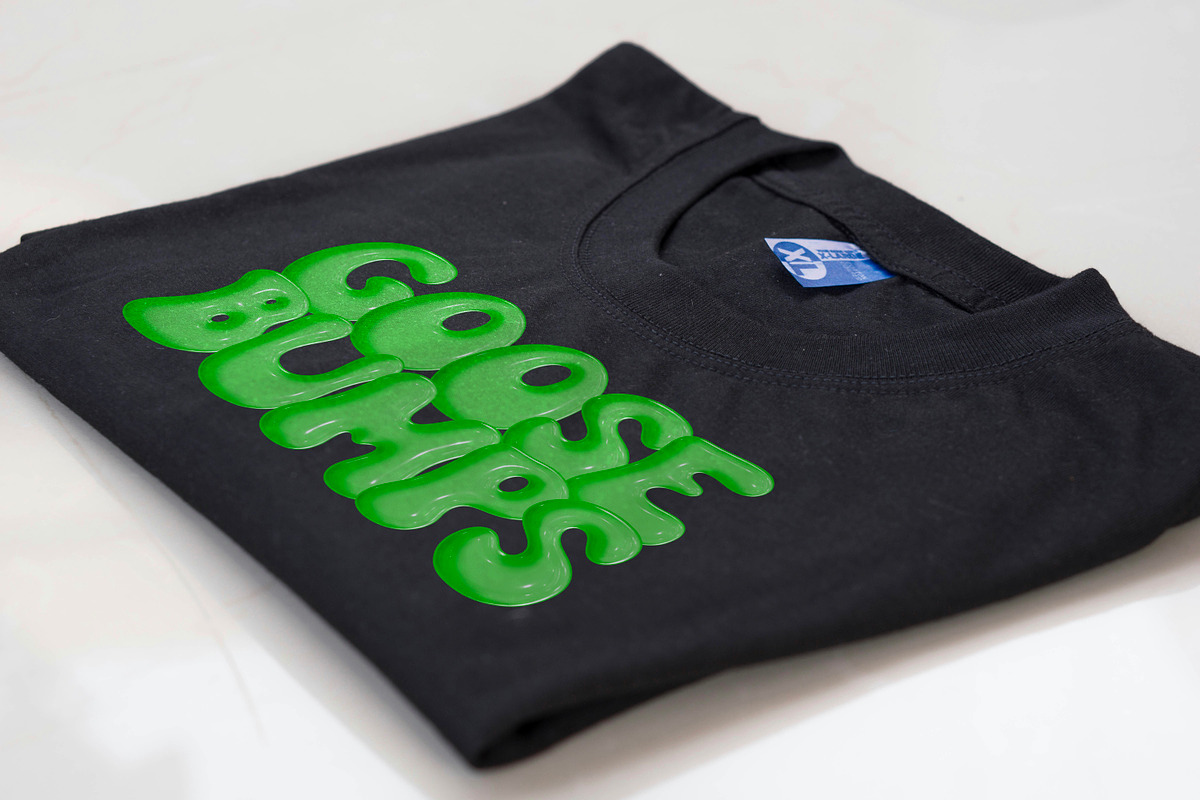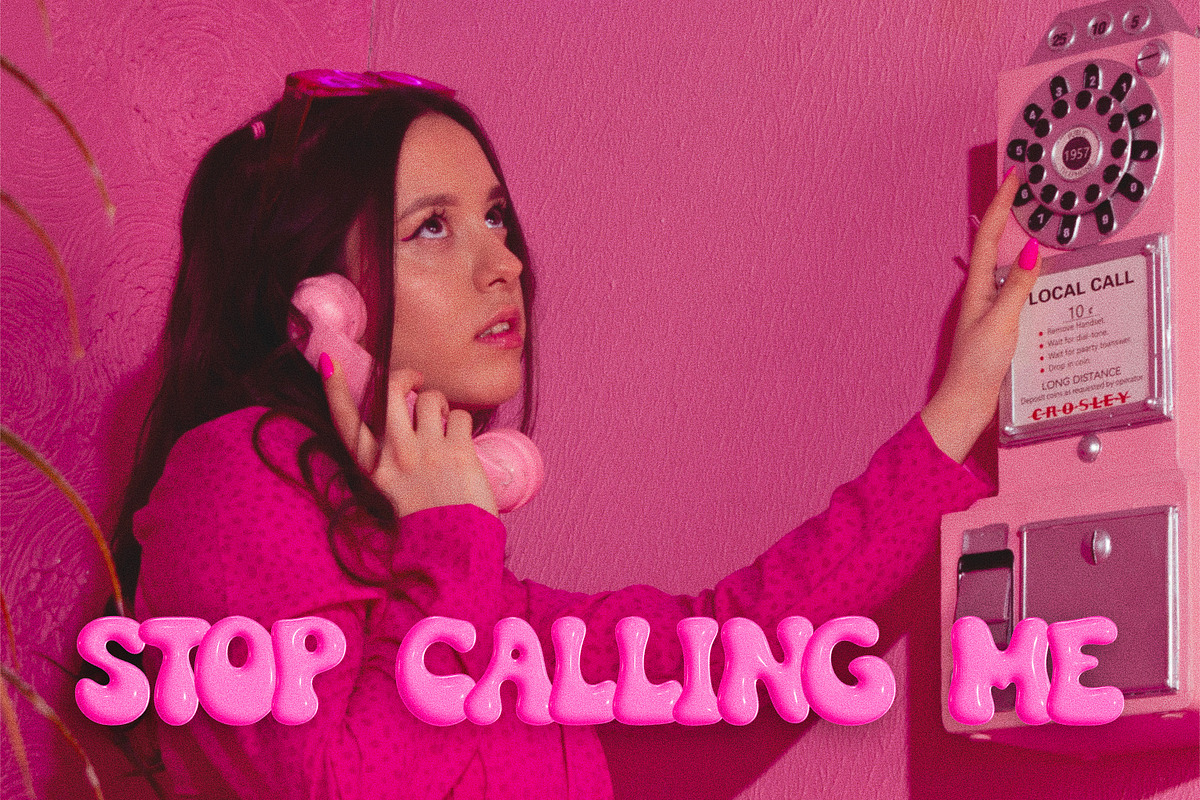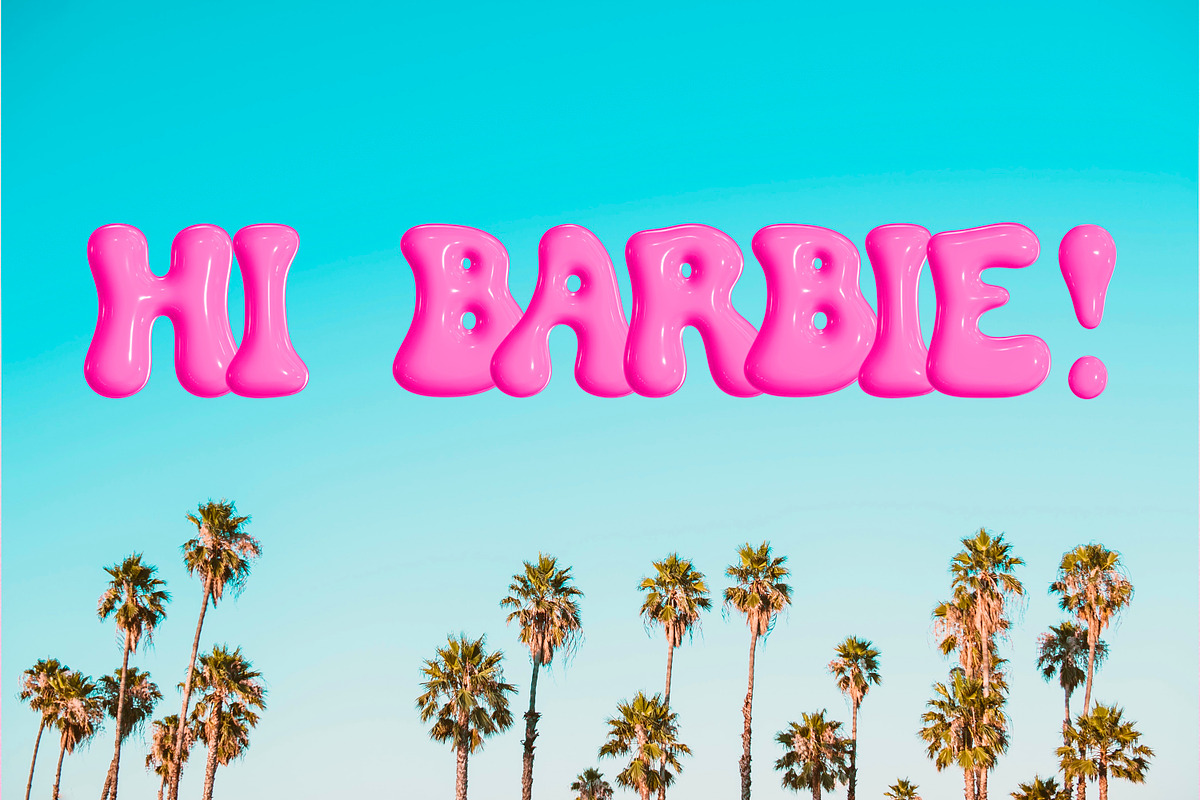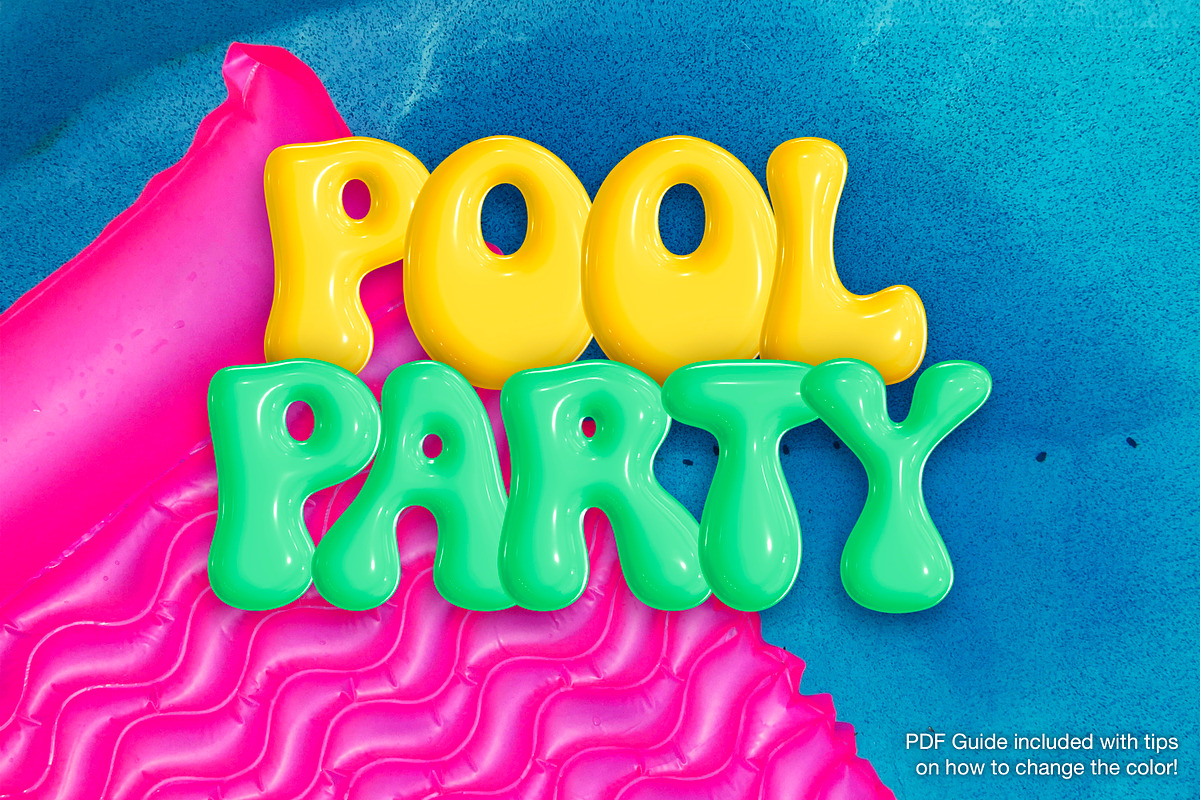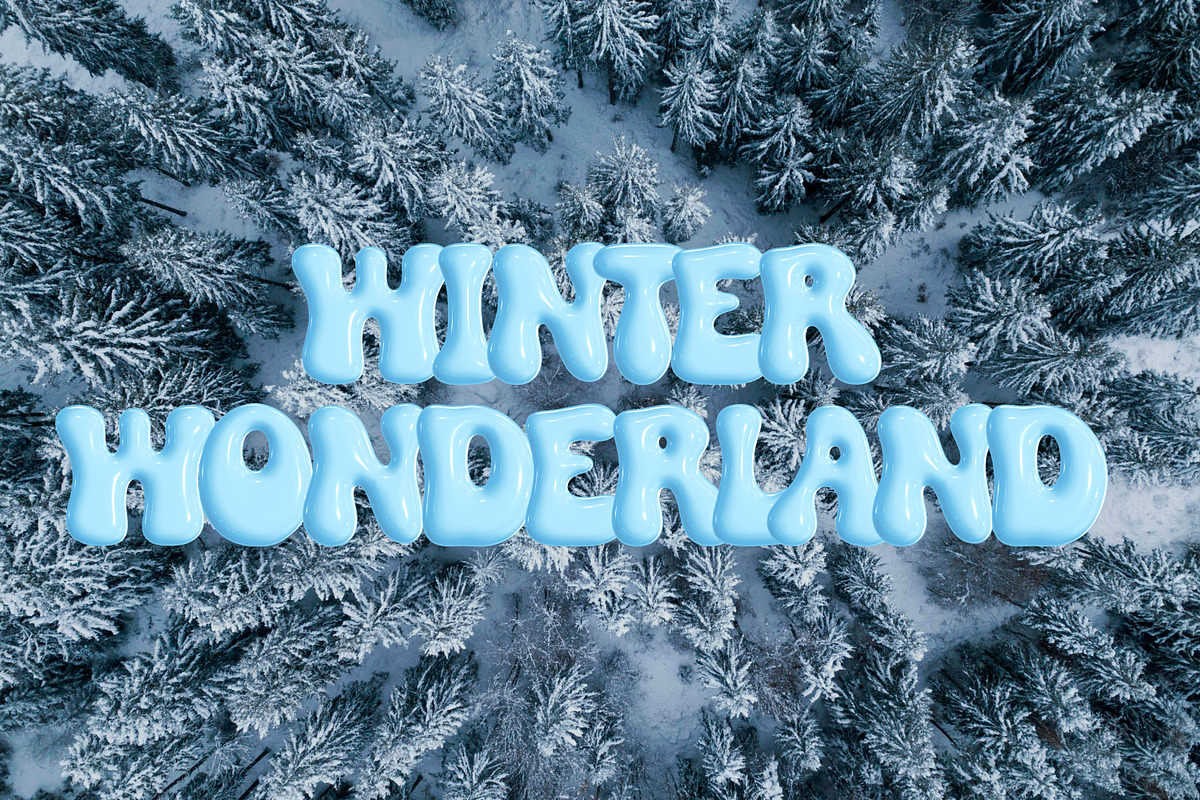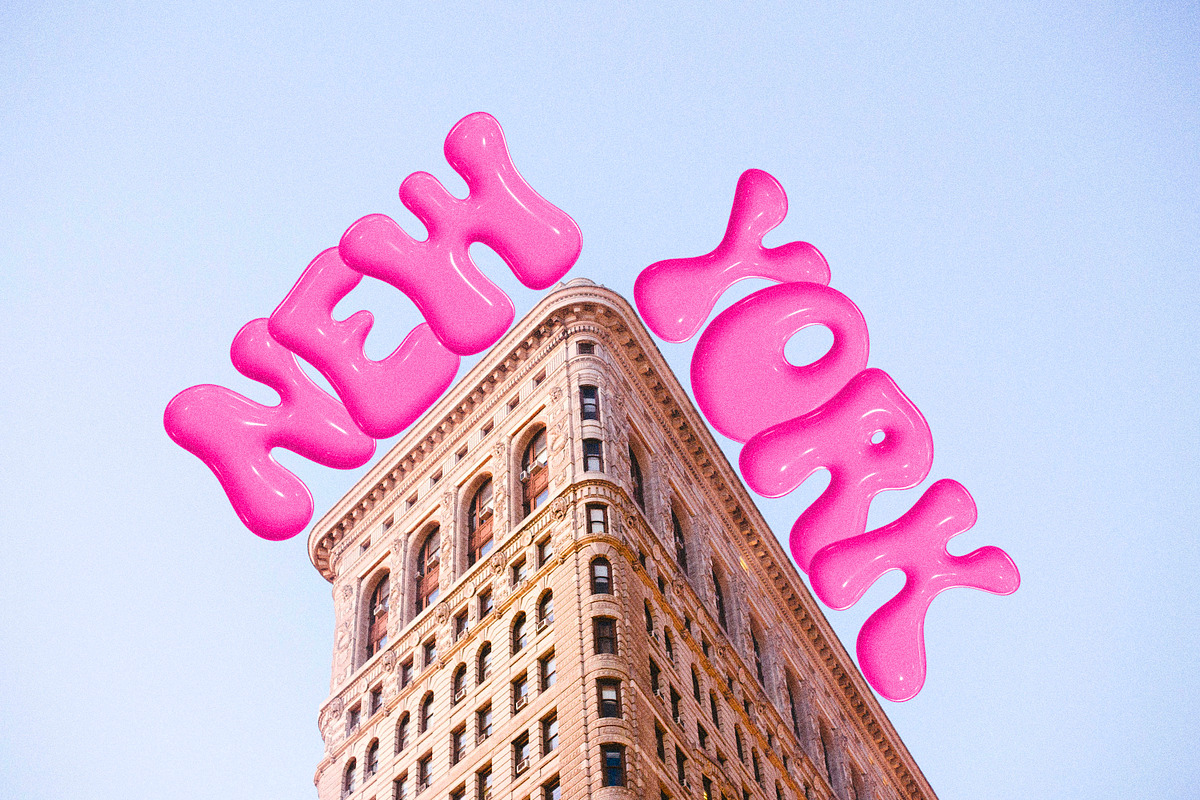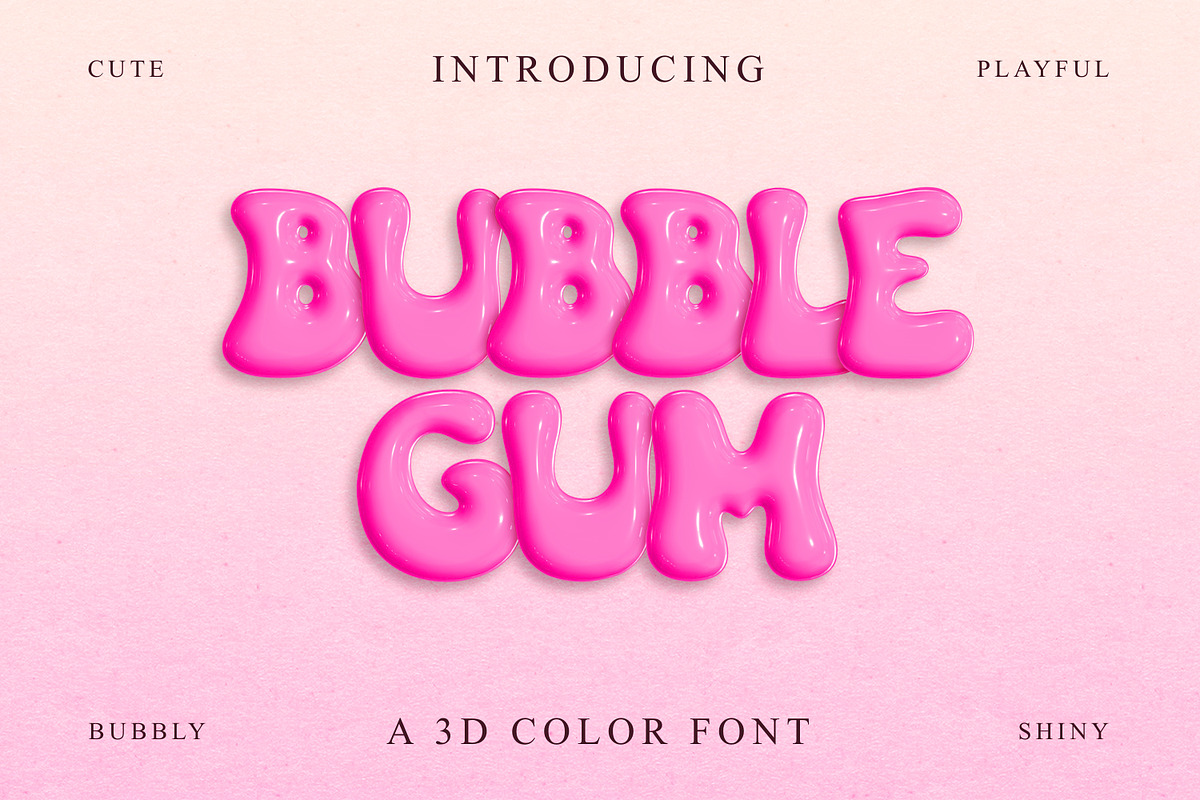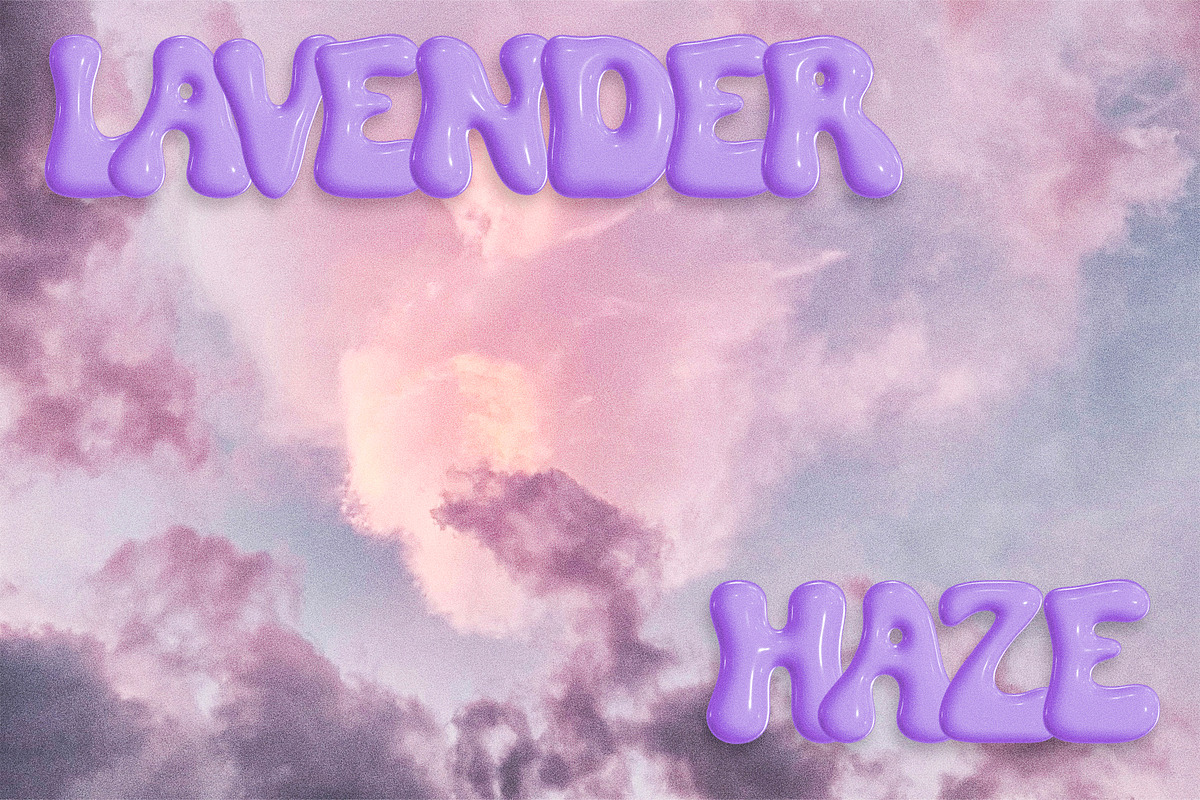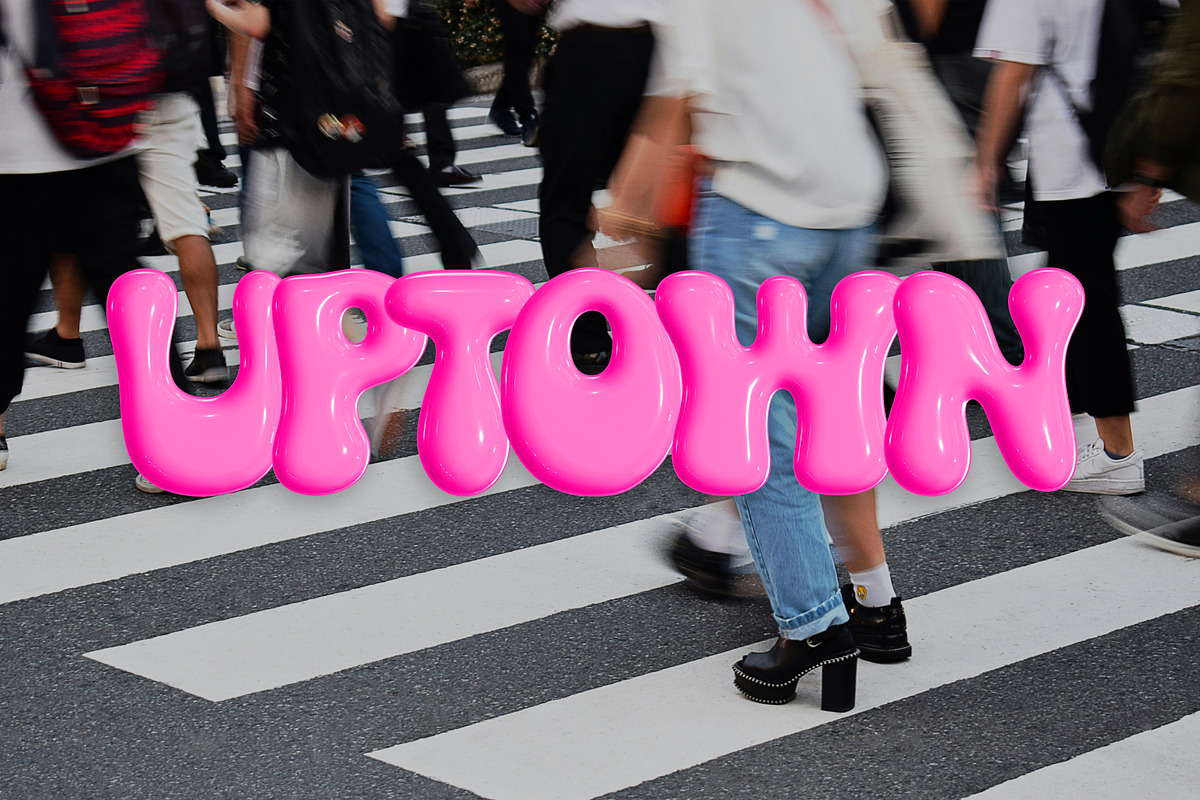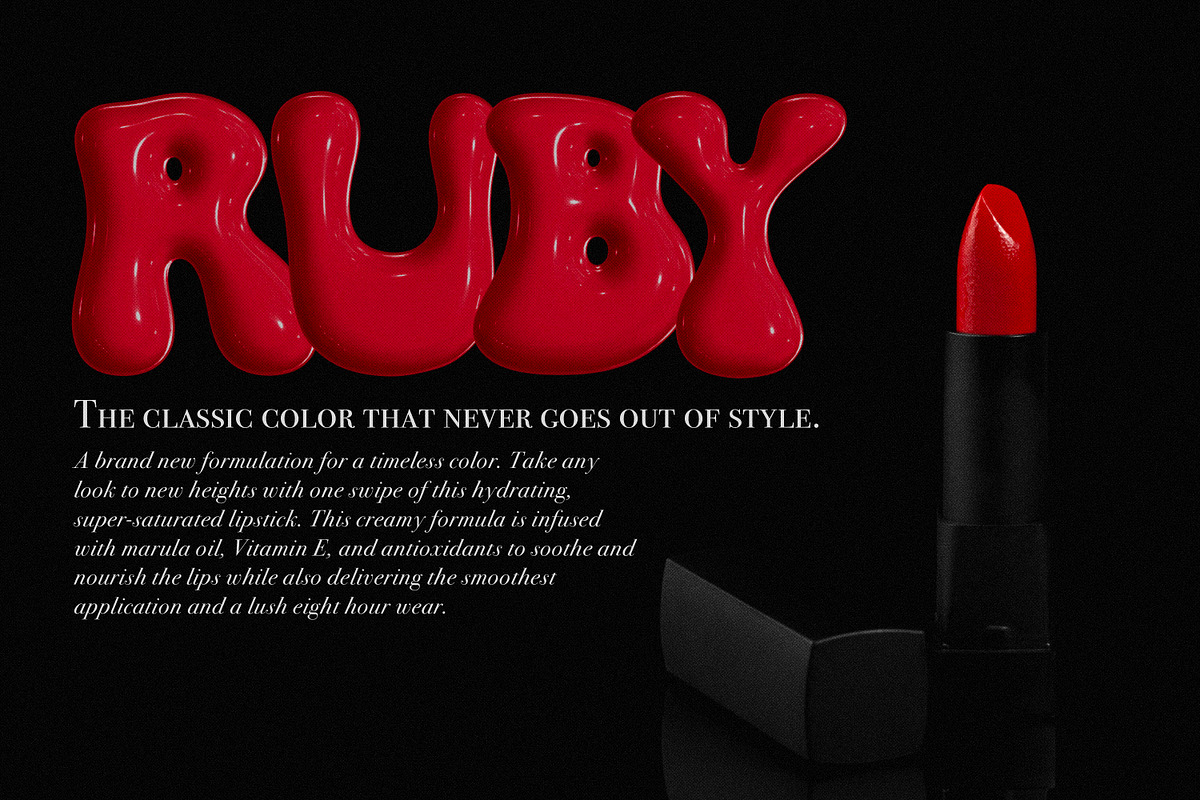
Bubble Gum | Pink 3D SVG Color Font
Introducing the Bubble Gum color font! This unique, 3D hand drawn font is a puffy, shiny, all caps rendition of the best selling Lava Lamp font. It would be absolutely perfect for casual, playful designs on stickers, invitations, flyers, t-shirts, posters, children’s branding, magazines, and much more!